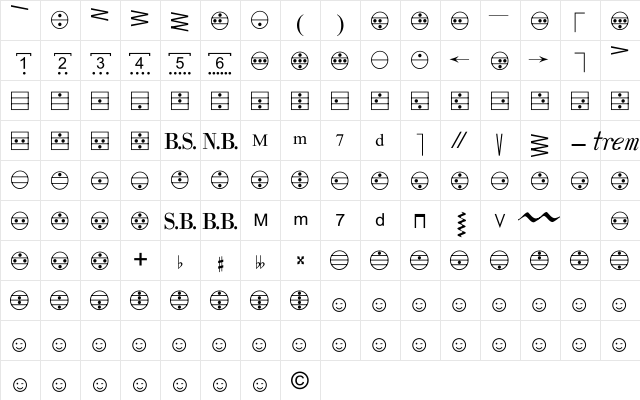
Accordion Regular
| Foundry | Dr H Fontricks, Unc. |
| Designer | Hiawatha, 2012 |
Design Context for Accordion Typeface
Accordion is a composed and adaptable typeface that performs quietly and consistently across a wide range of design contexts.